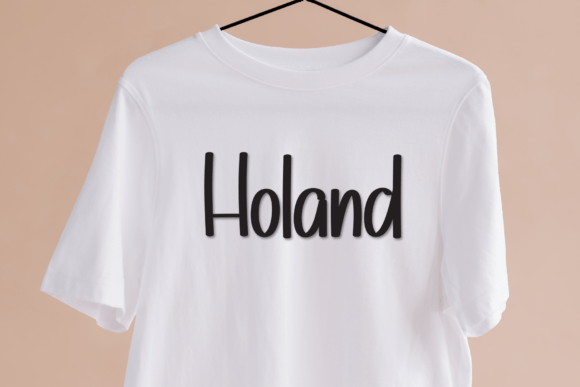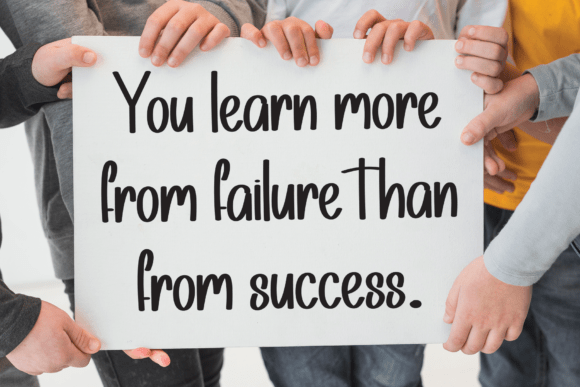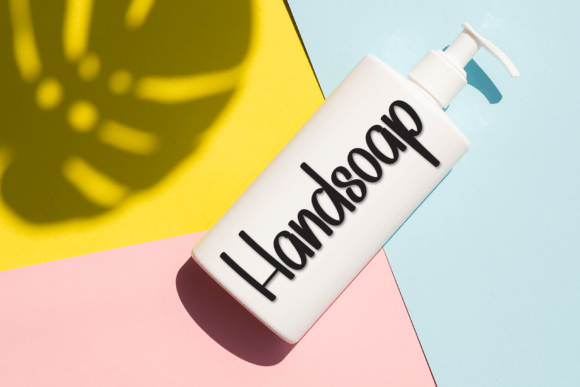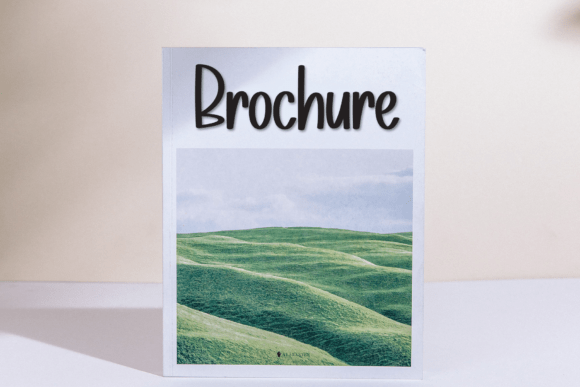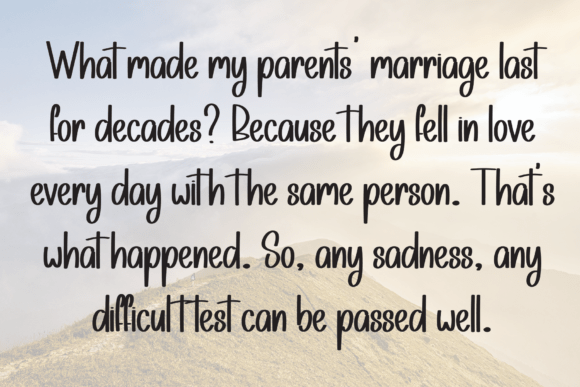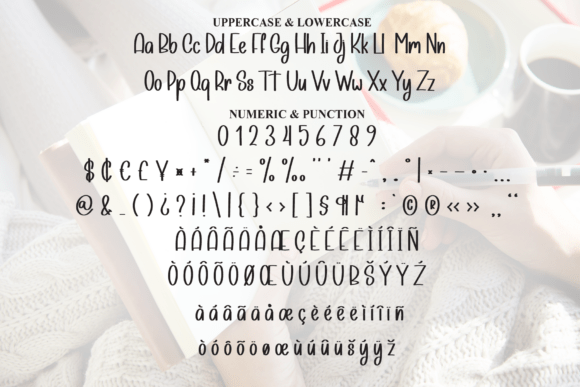
Introducing Diary Font: The Ultimate Choice for Fun and Relaxation
Are you tired of using the same old fonts for your creative projects? Look no further than Diary Font, a neat and casual display font that’s perfect for adding a touch of fun and relaxation to your designs. With its clean lines and easygoing vibe, Diary Font is ideal for summer posters, event flyers, and playful branding.
What Makes Diary Font So Special?
Diary Font is a unique and refreshing typeface that brings a breezy, laid-back feel to any creative project or message. Its cheerful and upbeat design makes it perfect for designers and crafters who want to add a personal touch to their work. Whether you’re creating a summer poster, an event flyer, or a playful brand identity, Diary Font is the perfect choice.
Key Features of Diary Font
- Clean Lines: Diary Font features clean and simple lines that give it a neat and organized look.
- Easygoing Vibe: The font has an easygoing and relaxed vibe that’s perfect for creating a laid-back feel.
- Cheerful Design: Diary Font has a cheerful and upbeat design that’s sure to grab attention.
- Versatile: The font is versatile and can be used for a variety of creative projects, from posters and flyers to branding and packaging.
Perfect for Summer Posters and Event Flyers
Summer is here, and what better way to celebrate than with a fun and refreshing font like Diary Font? Whether you’re creating a poster for a summer sale, a beach festival, or a backyard BBQ, Diary Font is the perfect choice. Its clean lines and easygoing vibe make it perfect for creating eye-catching posters and flyers that will grab attention and leave a lasting impression.
Playful Branding and Packaging
Diary Font is not just limited to posters and flyers; it’s also perfect for playful branding and packaging. Whether you’re creating a brand identity for a new product or rebranding an existing one, Diary Font can help you create a fun and relaxed image that’s sure to appeal to your target audience.
Tips for Using Diary Font
- Use it as a Header Font: Diary Font is perfect for use as a header font, where its clean lines and easygoing vibe can really make an impact.
- Pair it with Other Fonts: Diary Font pairs well with other fonts, so feel free to experiment with different combinations to create a unique look.
- Use it for Body Text: While Diary Font is perfect for headers, it can also be used for body text, especially for short paragraphs or captions.
In conclusion, Diary Font is a unique and refreshing typeface that’s perfect for designers and crafters who want to add a touch of fun and relaxation to their creative projects. With its clean lines, easygoing vibe, and cheerful design, Diary Font is ideal for summer posters, event flyers, and playful branding. So why not give it a try and see how it can elevate your designs?